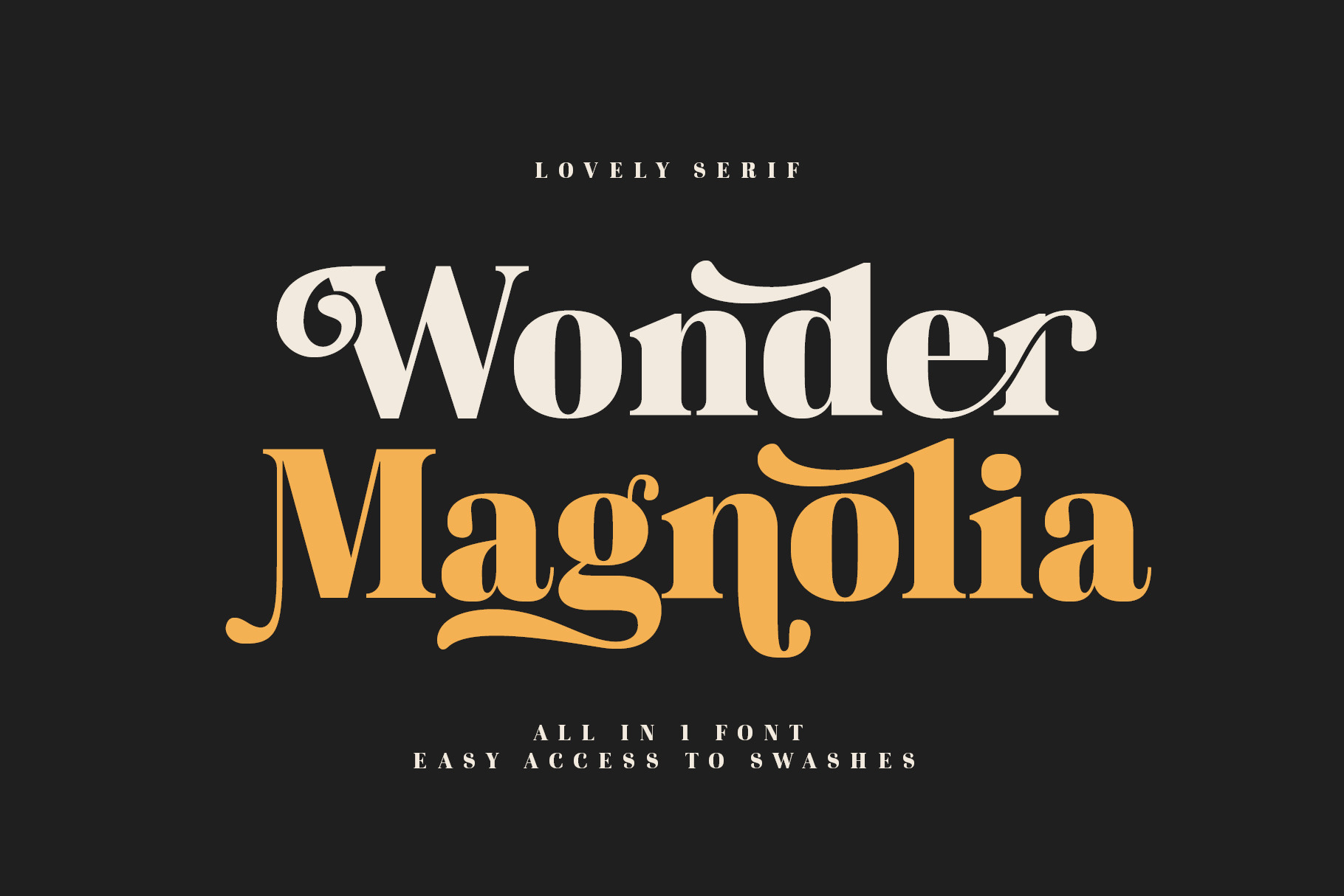
Wonder Magnolia Vintage Font
Wonder Magnolia is a modern serif with vintage charm, fashionable appearance with a touch of retro
Quick access - using the built-in OPEN TYPE functions. Just add "-" or "_" to the letter and instantly get an alternative. This feature works in most applications
Font is an open type with clean shapes and precise kerning. It includes ligatures and alternations with a total of 522 characters encoded by the PUA.
Language support: All European languages